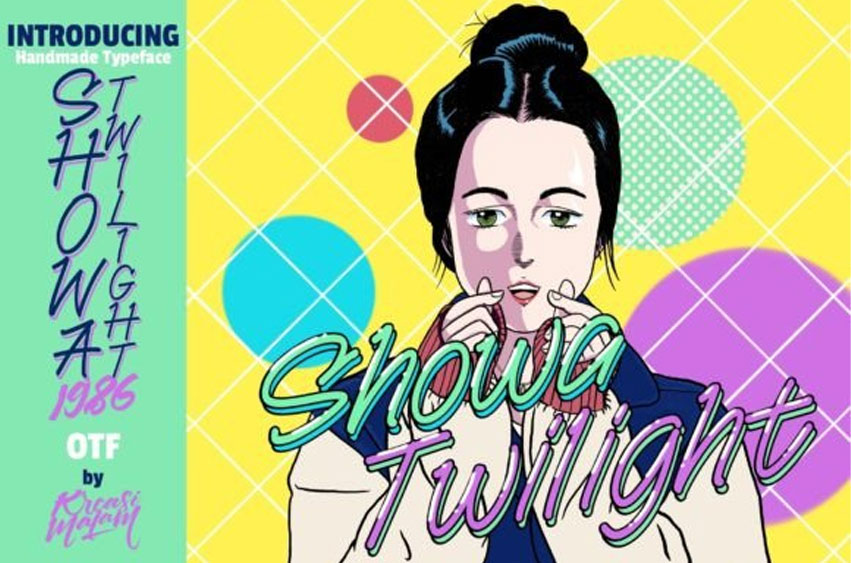
Showa Twilight Font
Showa Twilight Font is a handmade font with a script style that would be awesome for your design projects.
It is a great fit for logos, quotes, t-shirts, posters, or anything else.